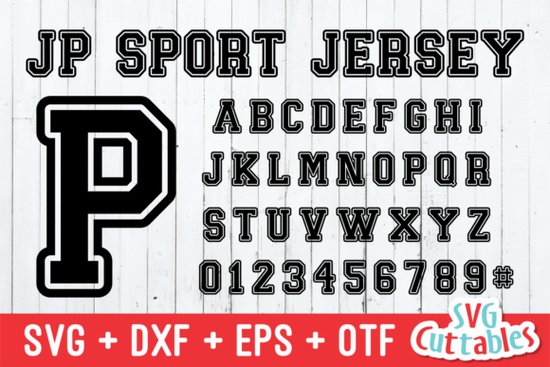
If you've been searching for a typeface that brings bold energy to sports-themed designs, JP Sport Jersey Font is worth a closer look. It's a slab serif with a strong, athletic personality the kind of font that looks right at home on team posters, jersey mockups, and print-on-demand sports merchandise.
What Makes This Font a Good Pick for Sports Designs?
Sports-themed projects need typefaces that feel powerful and confident without being hard to read. JP Sport Jersey Font nails that balance. The thick, blocky letterforms give it a stadium-ready look, while the slab serif details keep it structured and clean. It works well at both large display sizes and moderate headline sizes, so you can use it for:
- Team banners and posters
- Jersey number and name designs
- Social media graphics for sports leagues
- Greeting cards with an athletic theme
- T-shirt designs for print-on-demand shops
- Presentation slides with a bold headline
The versatility here is real. You're not locked into one type of project. Whether you sell designs on Etsy, run a small business, or just enjoy crafting, this font adapts to what you need.
Who Should Use the JP Sport Jersey Font?
This font is a solid match for several types of creators:
Print-on-demand sellers who focus on niche sports gear think custom team shirts, fan merchandise, or league branding will find this typeface saves time. Instead of hunting through dozens of fonts, you have one that already carries the right tone.
Crafters and hobbyists making birthday cards, scrapbook pages, or party decorations for sports-loving friends and family will appreciate how easy it is to work with. The bold shapes read clearly even on textured backgrounds.
Small business owners in the fitness, coaching, or recreational sports space can use it for flyers, menus, and branded materials. It gives a professional feel without looking stiff or corporate.
Digital designers building presentations, YouTube thumbnails, or website headers with a sporty vibe will find it slots in naturally alongside other slab serif fonts or sans-serif pairings.
Can I Use It for Crafts Beyond Sports?
Absolutely. The "sport jersey" label points to its main inspiration, but the font itself is versatile enough for non-sports projects too. Its bold, chunky character makes it useful for:
- Kids' birthday invitations
- Retro or vintage-style posters
- Menu headers for casual restaurants
- Label designs for handmade products
Think of it as a bold display font first and a sports font second. That broader usability is what makes it a practical addition to any font collection.
How Does It Compare to Other Slab Serif Fonts?
Slab serif fonts cover a wide range from elegant editorial serifs to heavy, industrial styles. JP Sport Jersey Font sits firmly on the bold, athletic end. Compared to more traditional slab serifs like Roboto Slab, it has more visual weight and personality. It's designed to make a statement, not blend into body text.
If you pair it with a clean sans-serif for supporting text something like a simple geometric or neo-grotesque you'll get a nice contrast that keeps your layouts balanced.